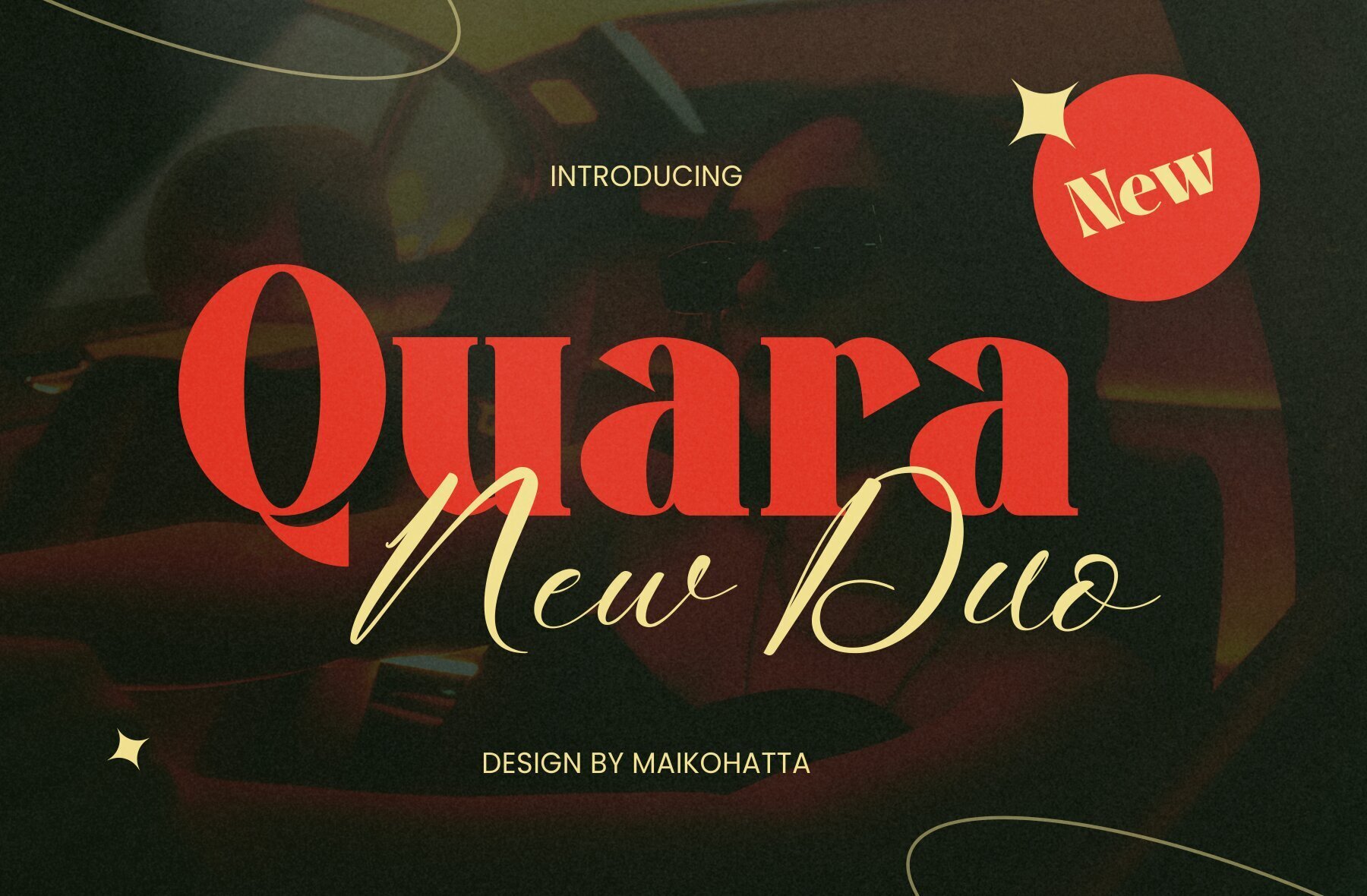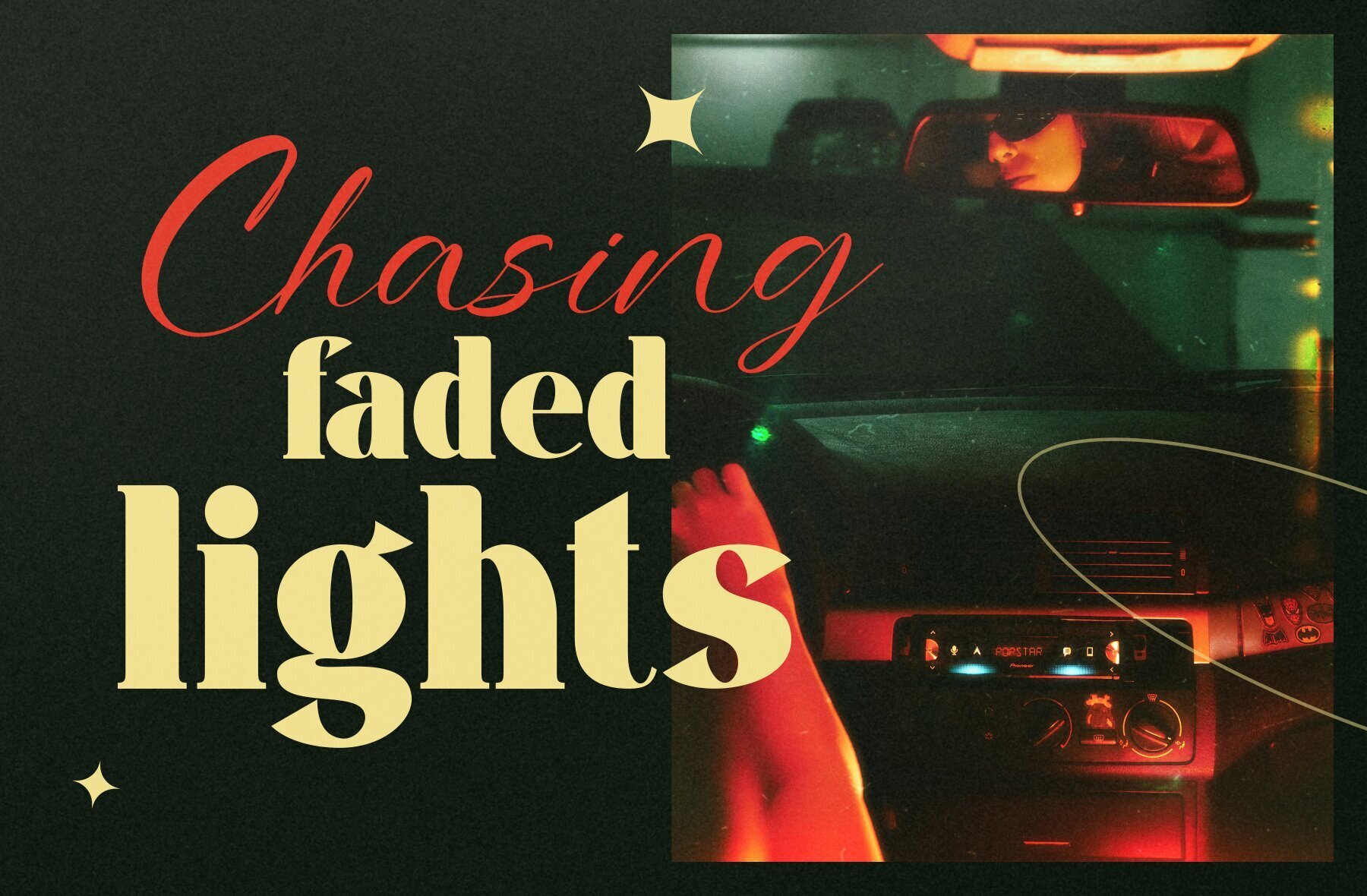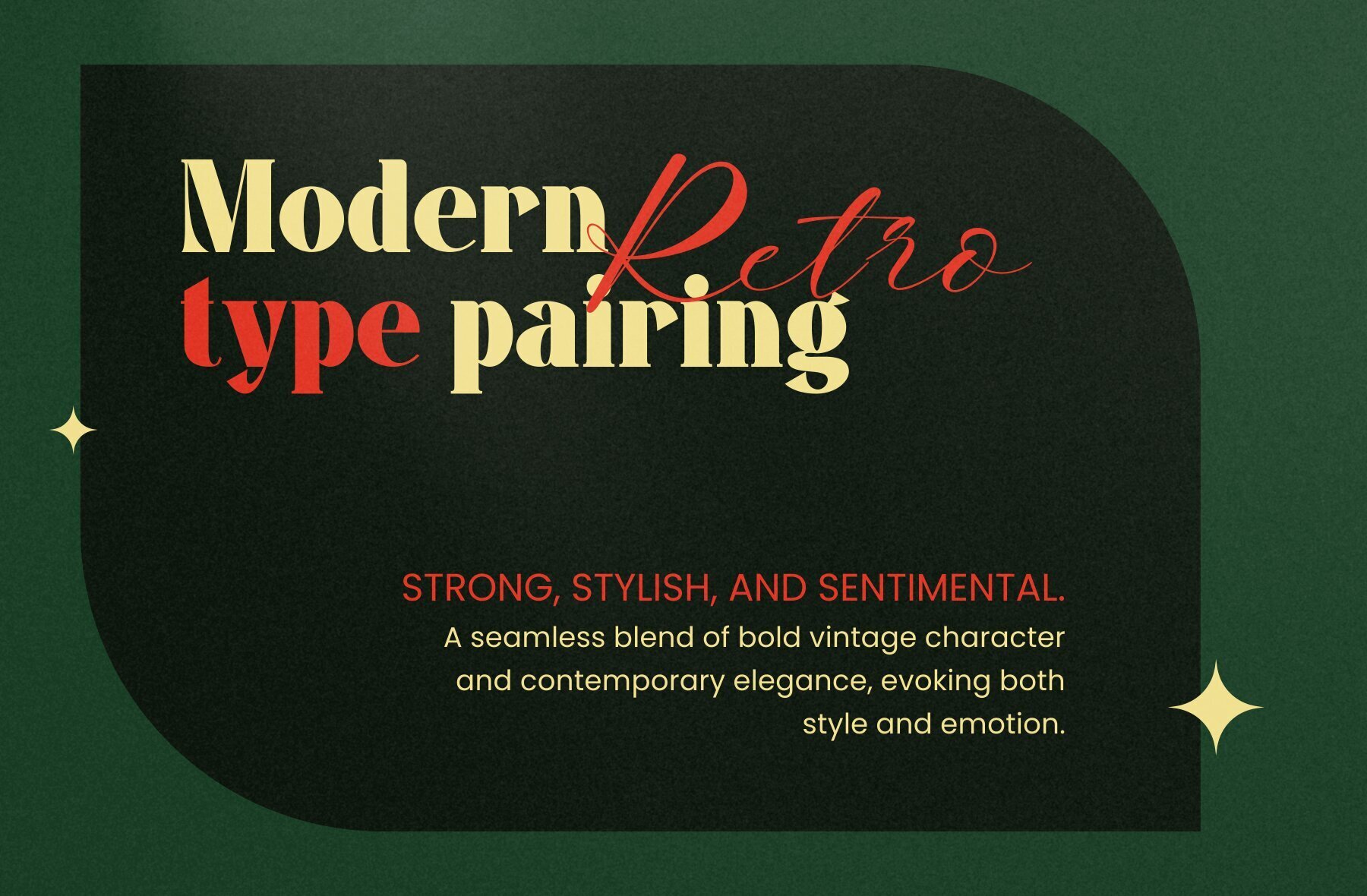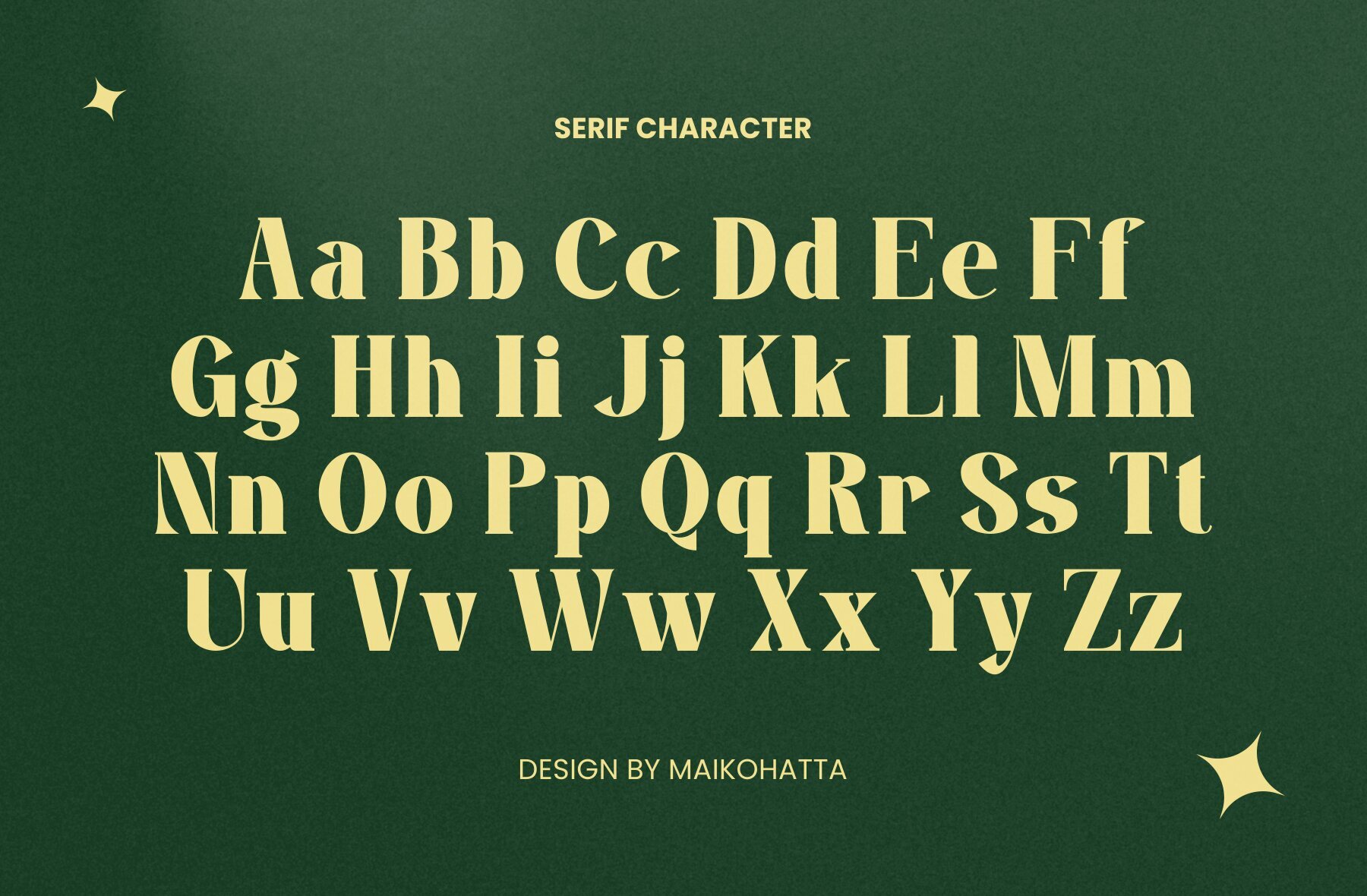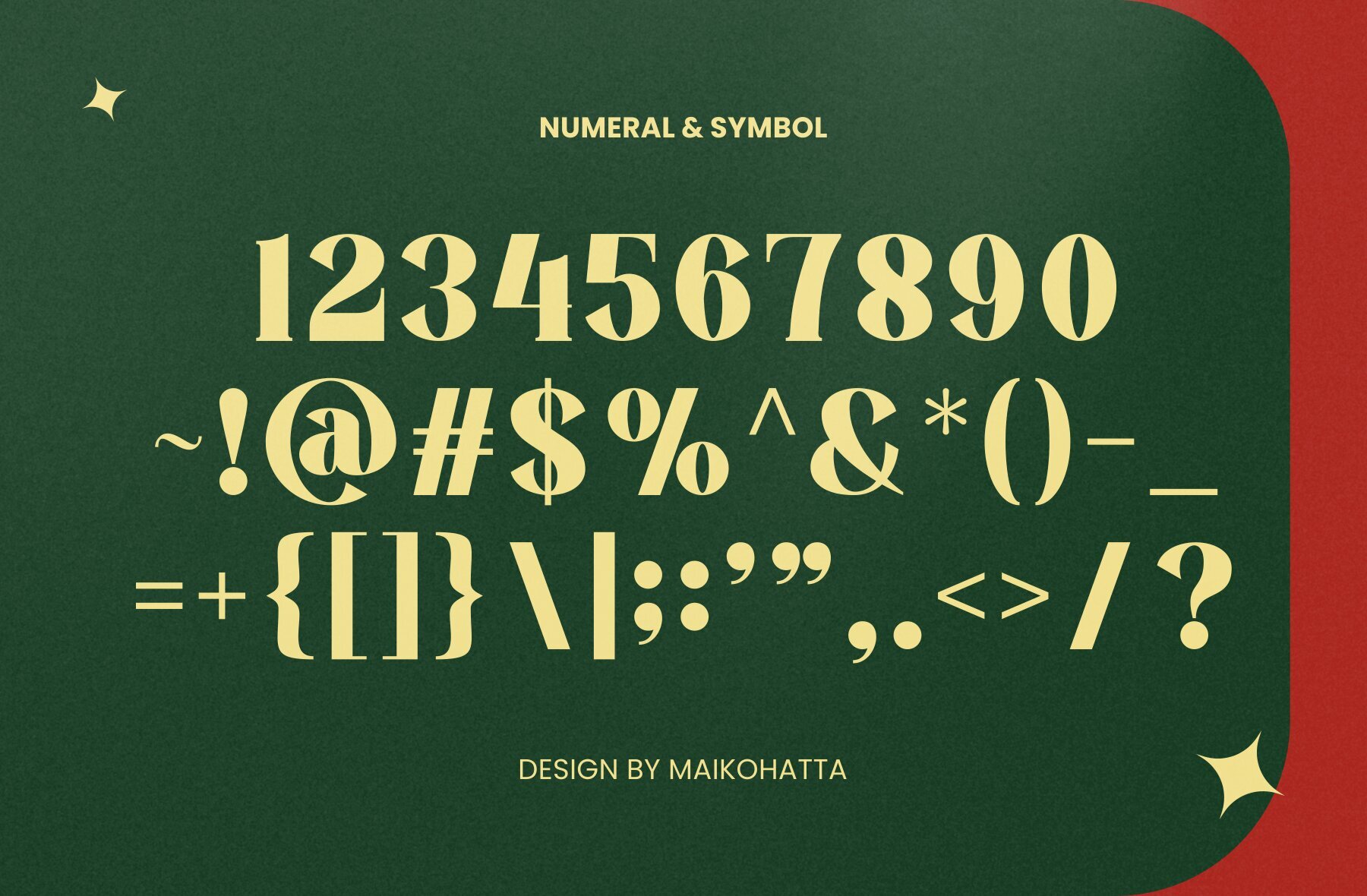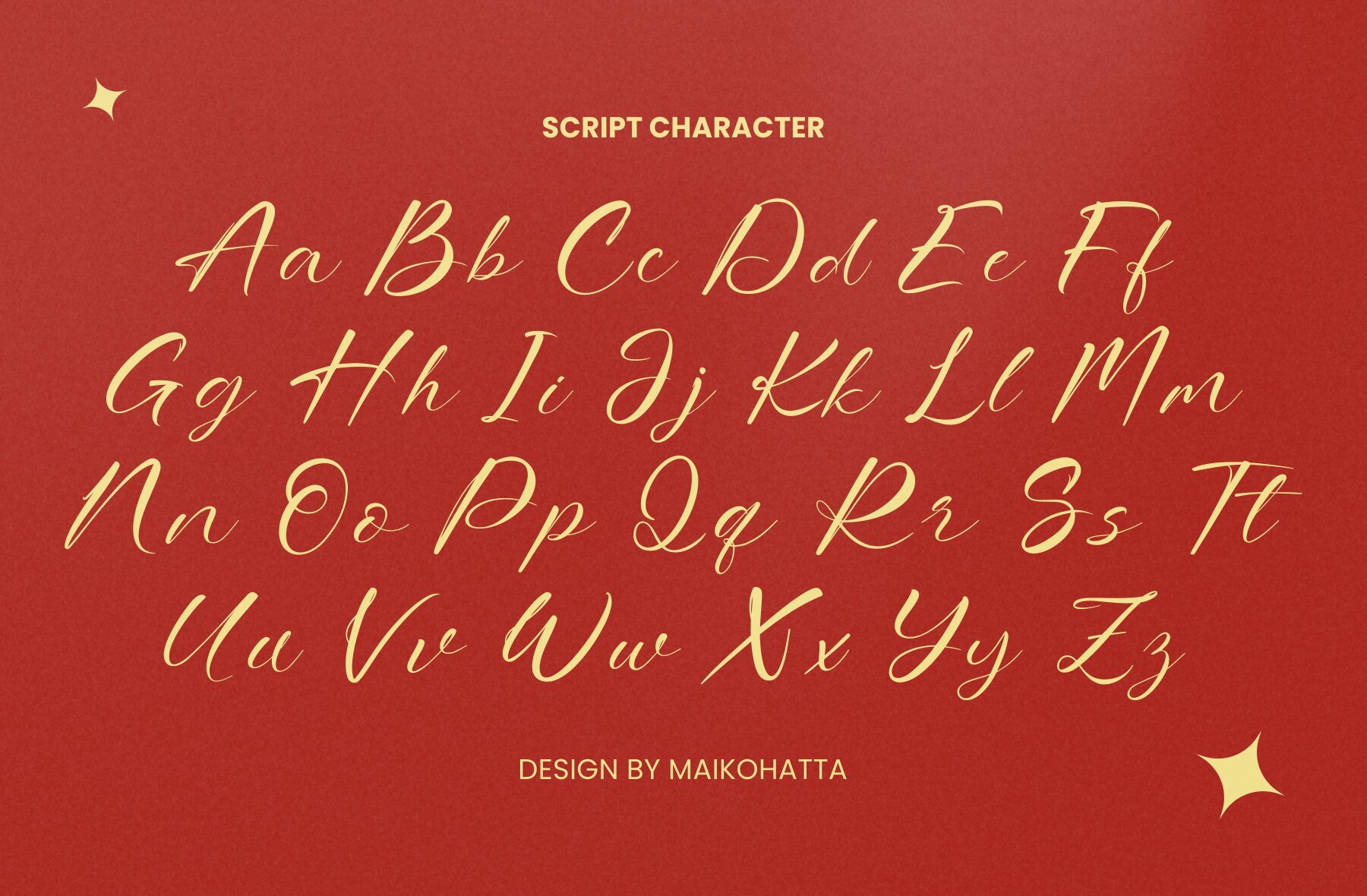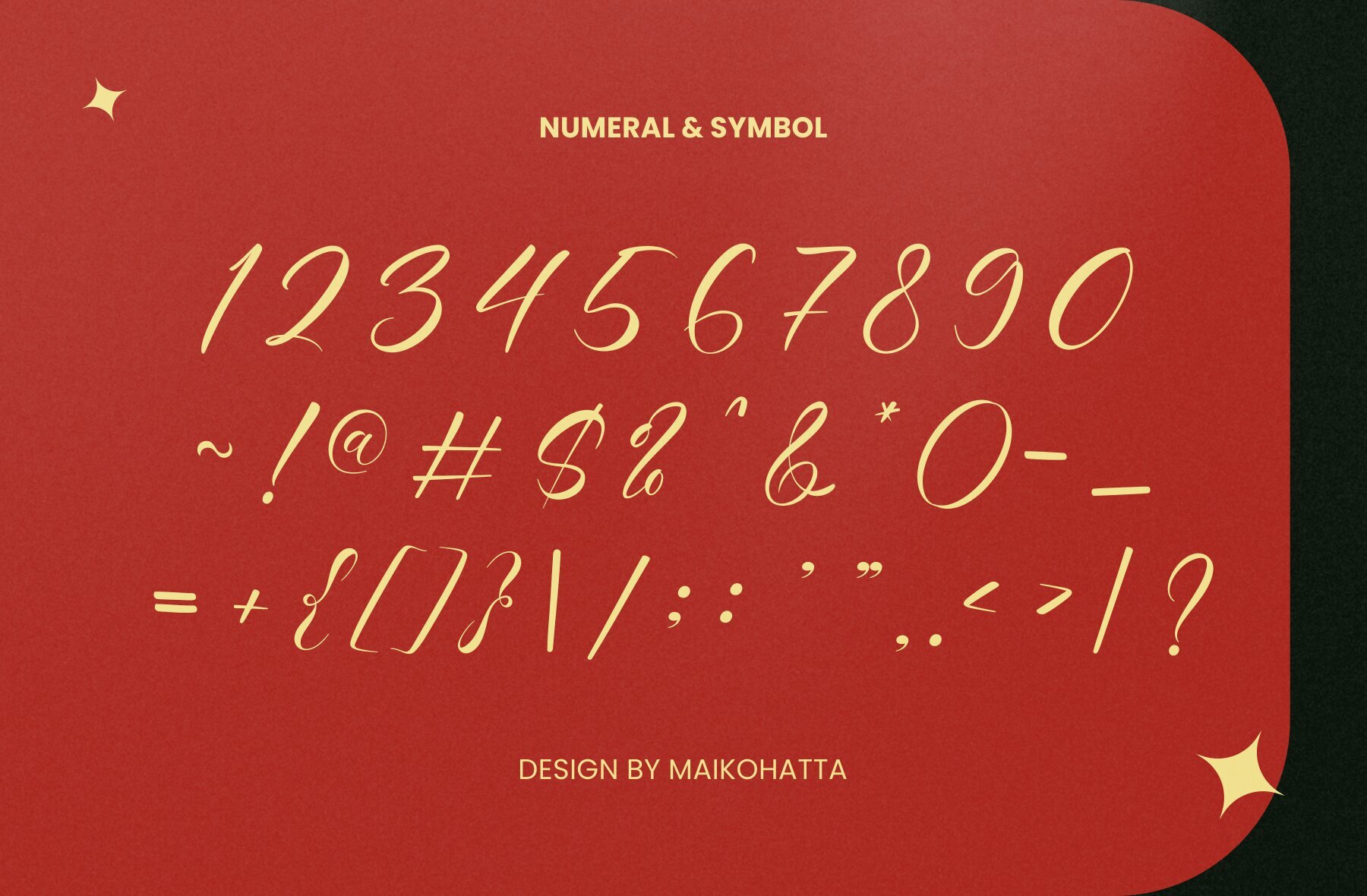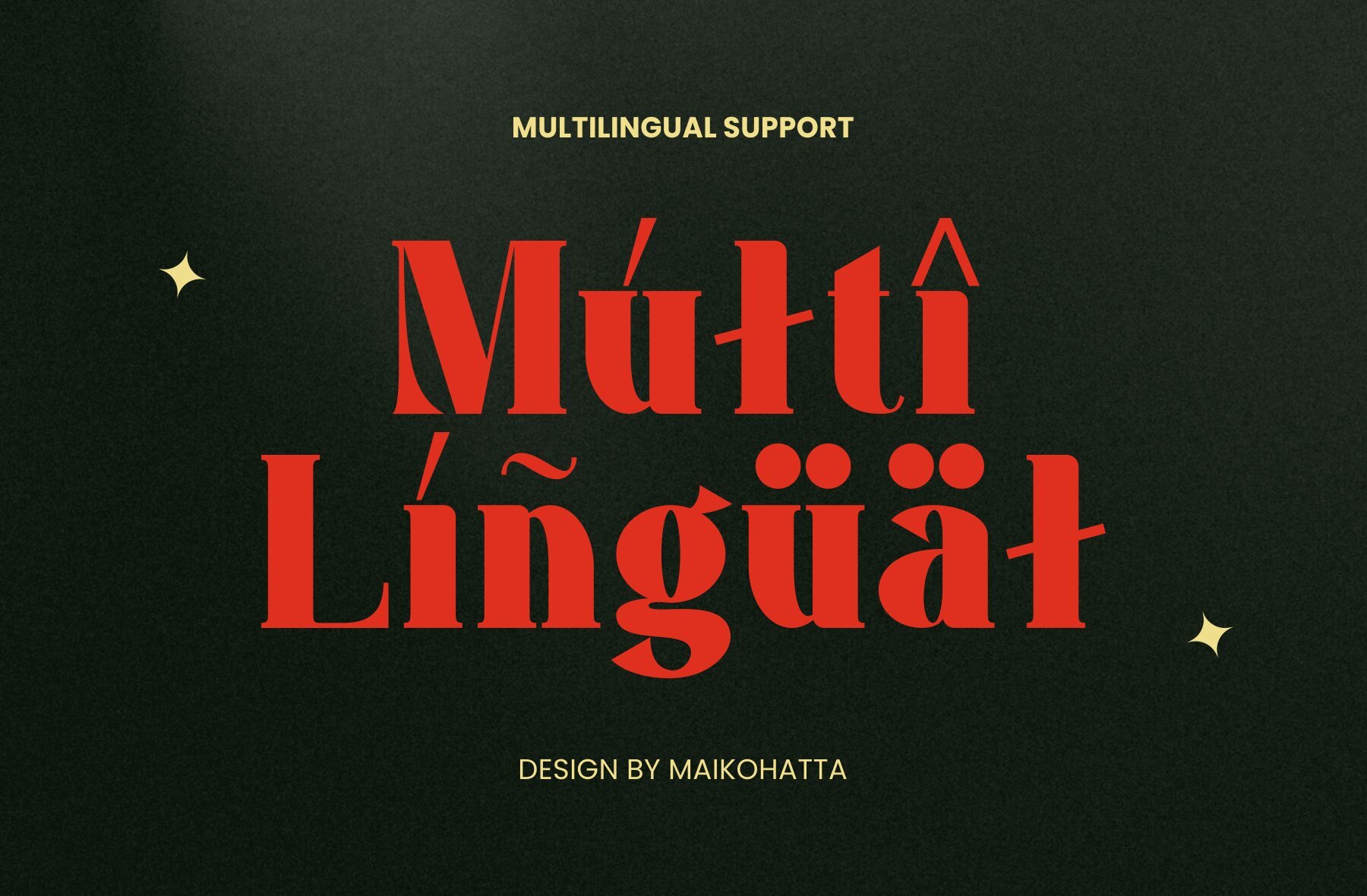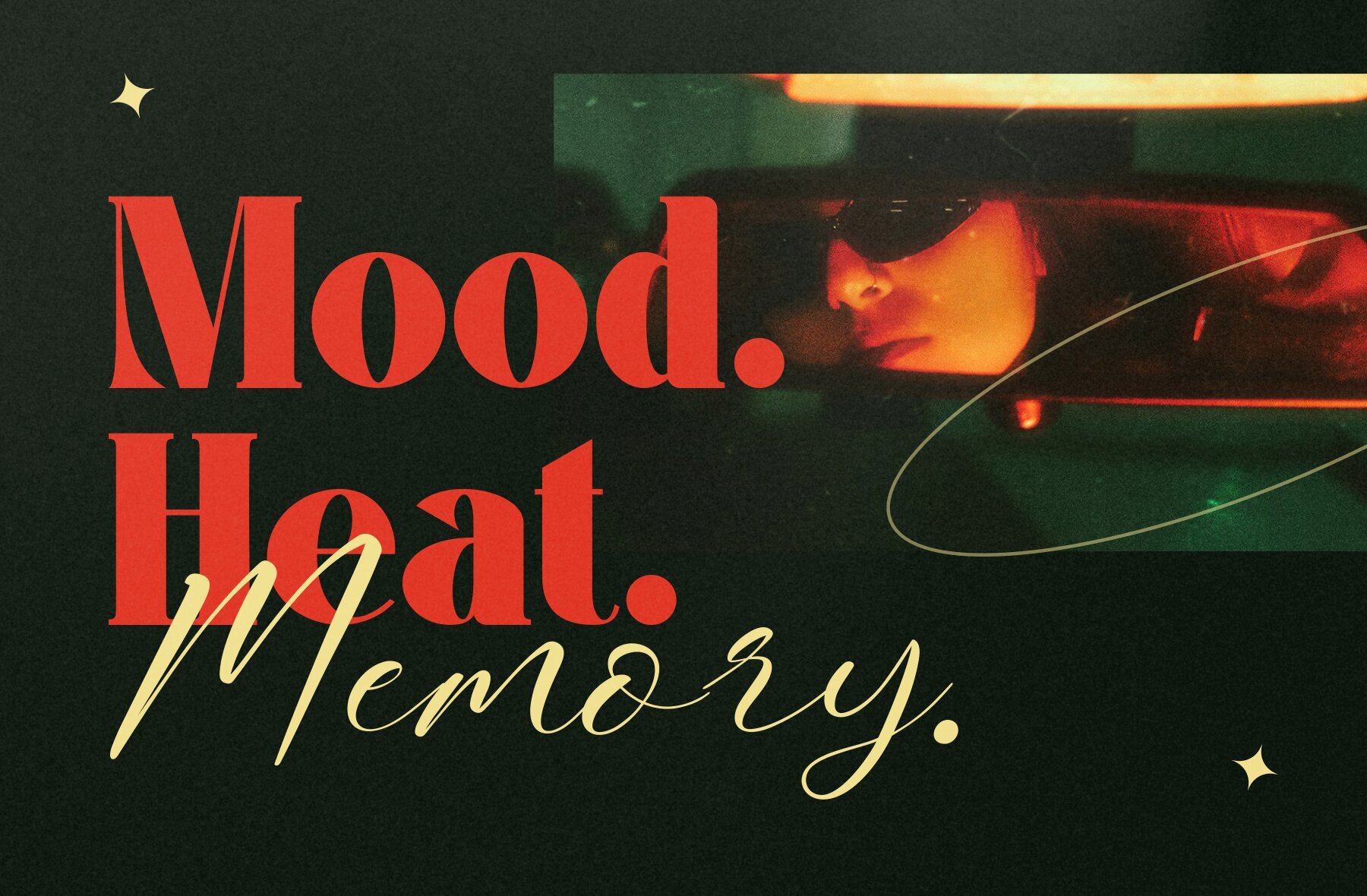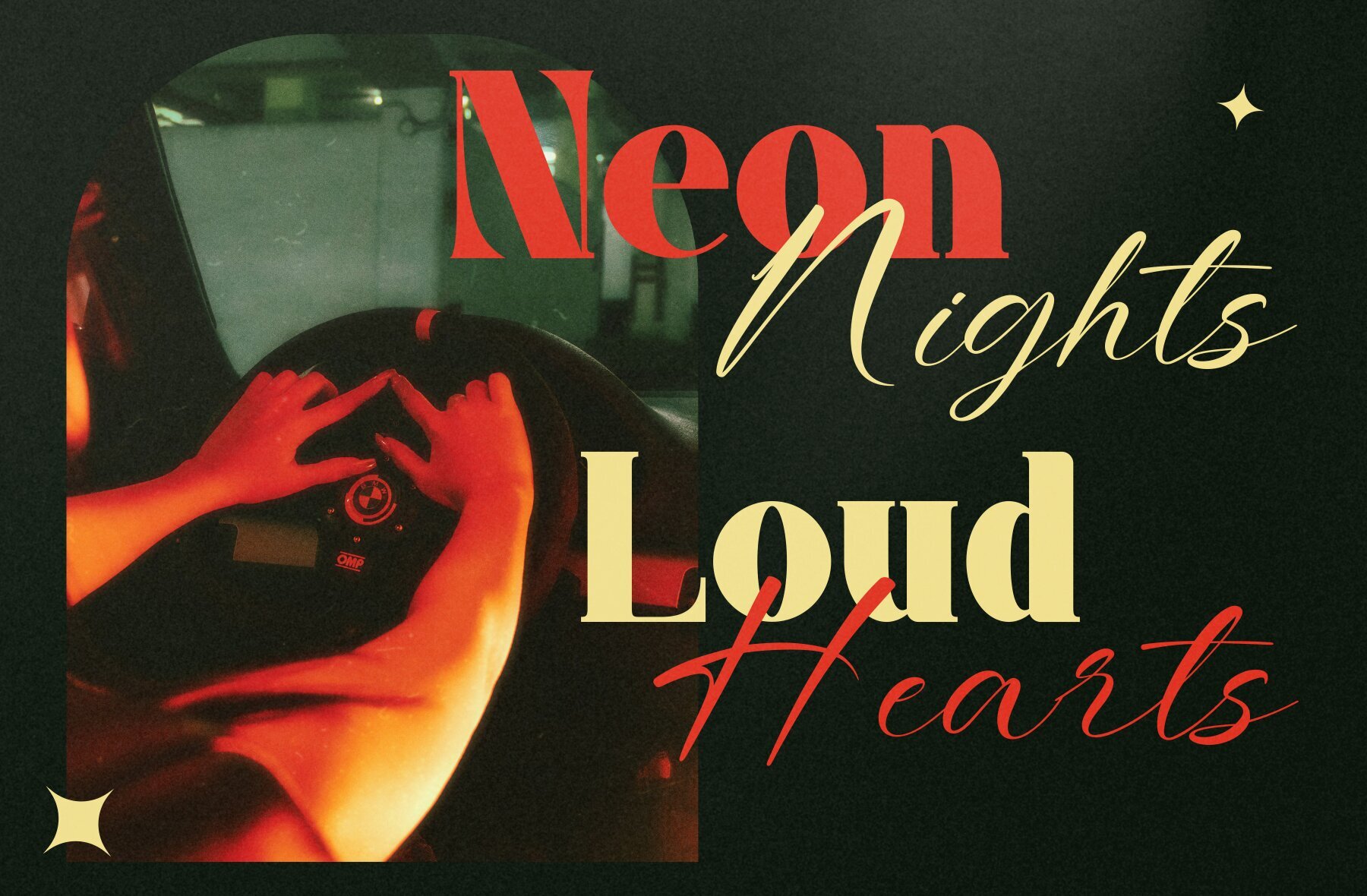
Quara Font
Quara is a refined font duo that seamlessly integrates a stylish serif with an elegant script, perfect for projects that demand both structure and flair. This typeface is an ideal choice for luxury branding, editorial layouts, or romantic stationery, providing both versatility and charm to make your message truly memorable. Additional Features: Perfect For: Quara’s charming balance of sophistication and style ensures every letter tells a story.Quara Font Duo Typeface: Modern Elegance Meets Timeless Character